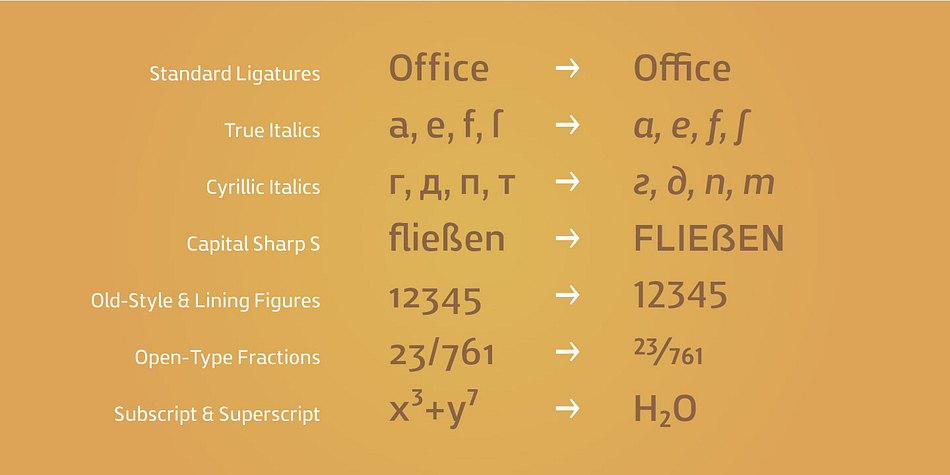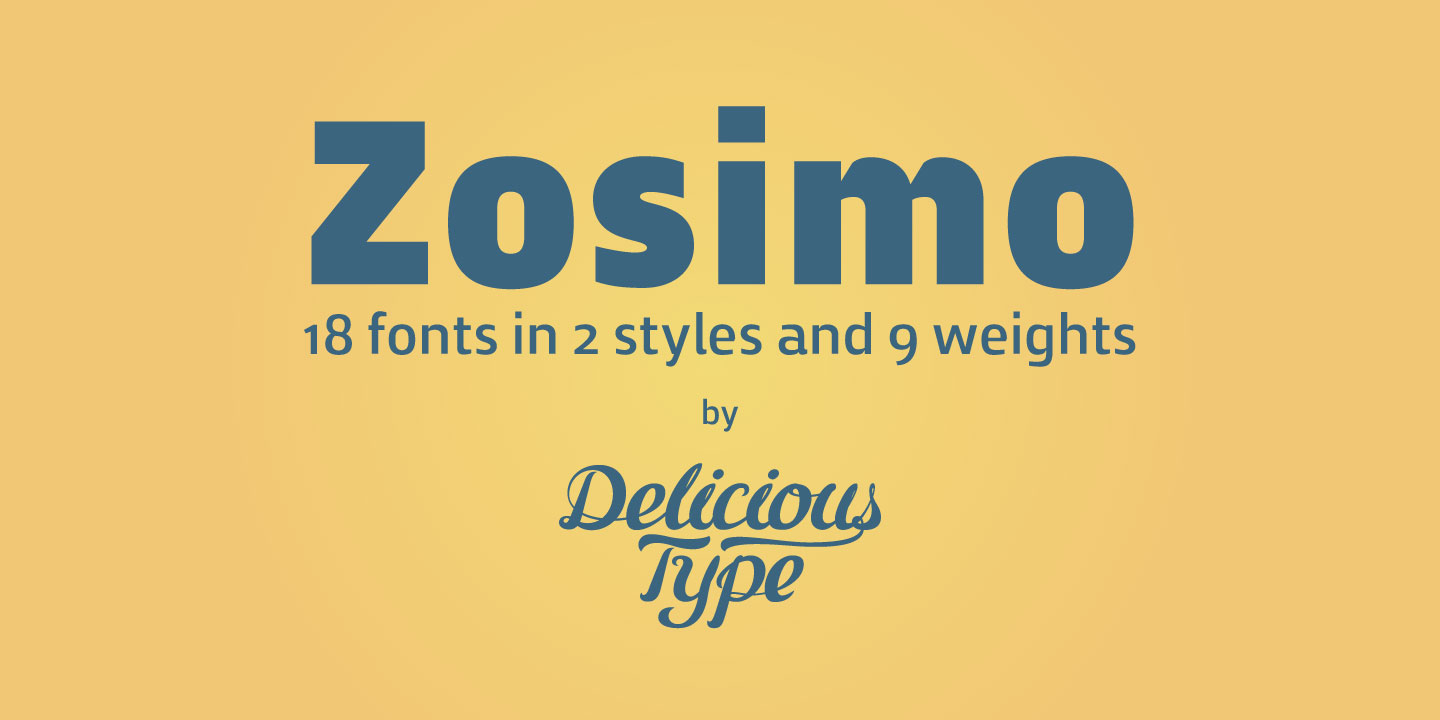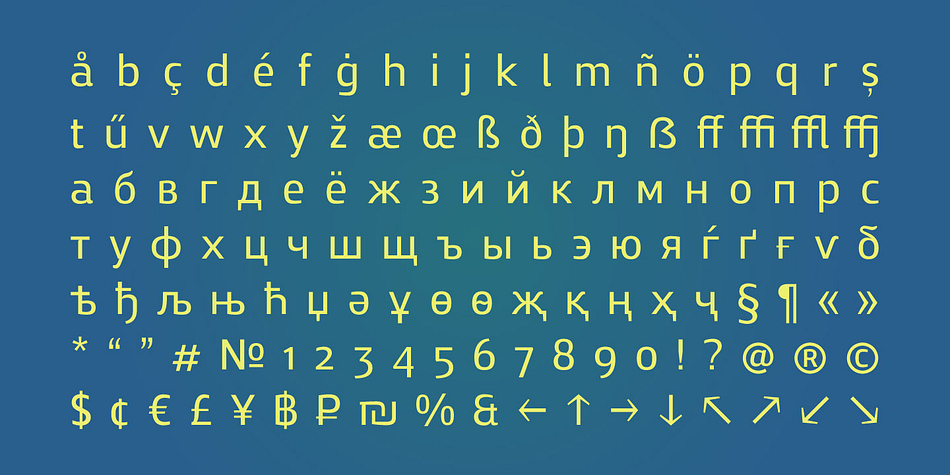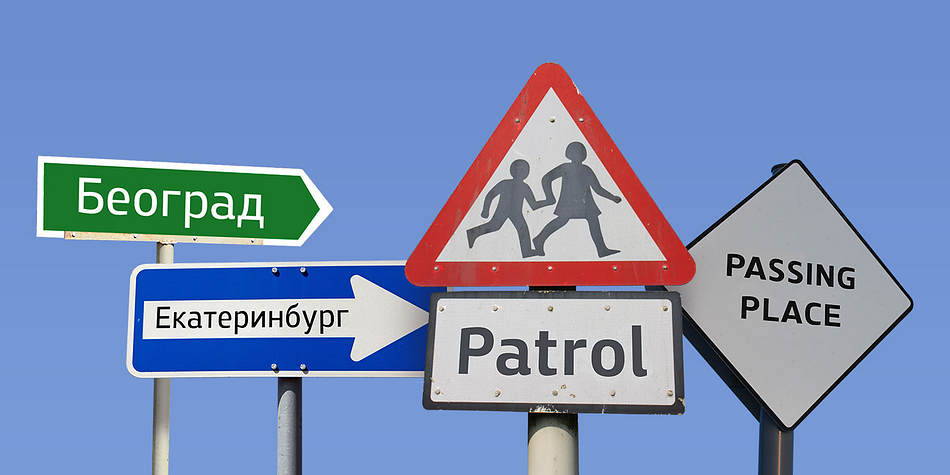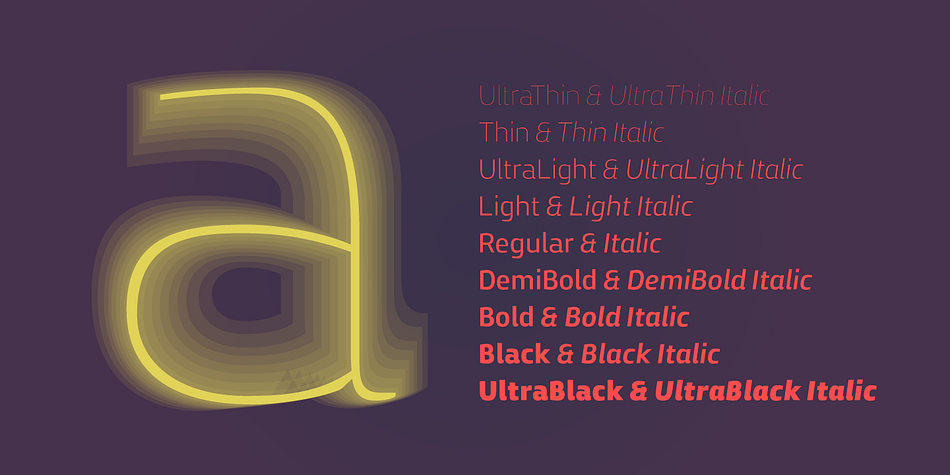
Designed by Ron Gilad, Zosimo Pro is a sans serif font family. This typeface has eighteen styles and was published by Delicious Type.
Zosimo is a neo-grotesque typeface created by designer Ron Gilad (Delicious Type) in cooperation with renowned typographer Oded Ezer based on his ubiquitous Alchemist typeface.
Carefully drawn curves, robust shapes and a range of OpenType features make Zosimo a great choice for designing logotypes, signage, titling, texts and more.
Zosimo now comes in three families: Standard (full Latin support), Cyrillic (basic Latin and Cyrillic) and Pro (all included).
Totalling in 9 weights, roman and italic, Zosimo can accommodate all your type-related design needs in one big happy family.